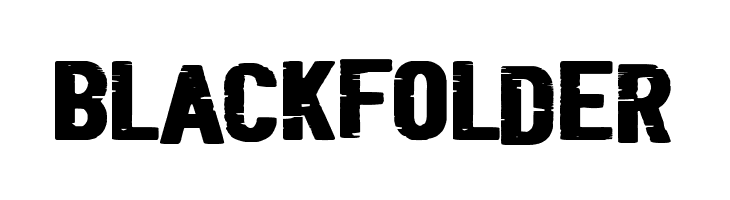
A bold, playful font with bulbous, cartoonish characters.
A bold, thorny, and intricate decorative font with a gothic and edgy style.
A bold, gothic font with sharp, pointed edges and a medieval aesthetic.
A bold, gothic-inspired font with sharp, angular edges.
A bold, graffiti-inspired font with dynamic, jagged lines and a rebellious urban style.
A bold, dynamic script font with flowing, cursive strokes.
A bold, flowing script font with elegant, cursive letterforms.
A bold, brush-style font with dynamic, irregular strokes.
A rugged, distressed font with jagged edges and a bold appearance.